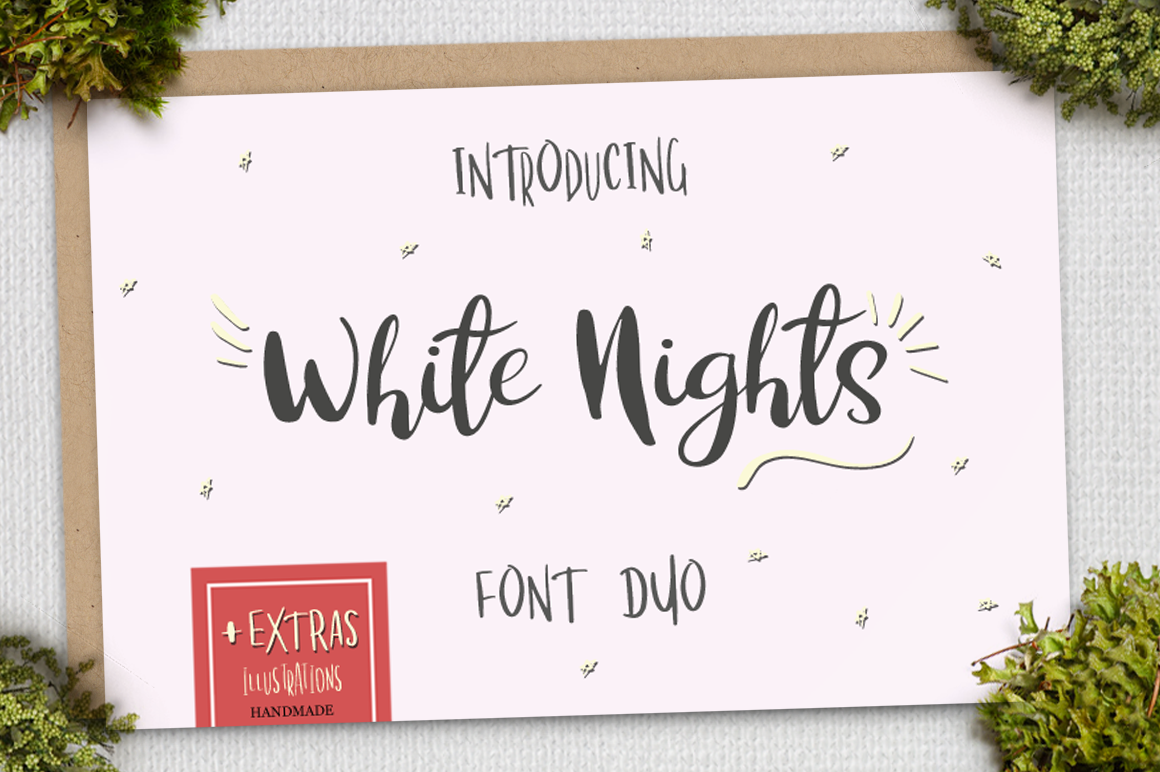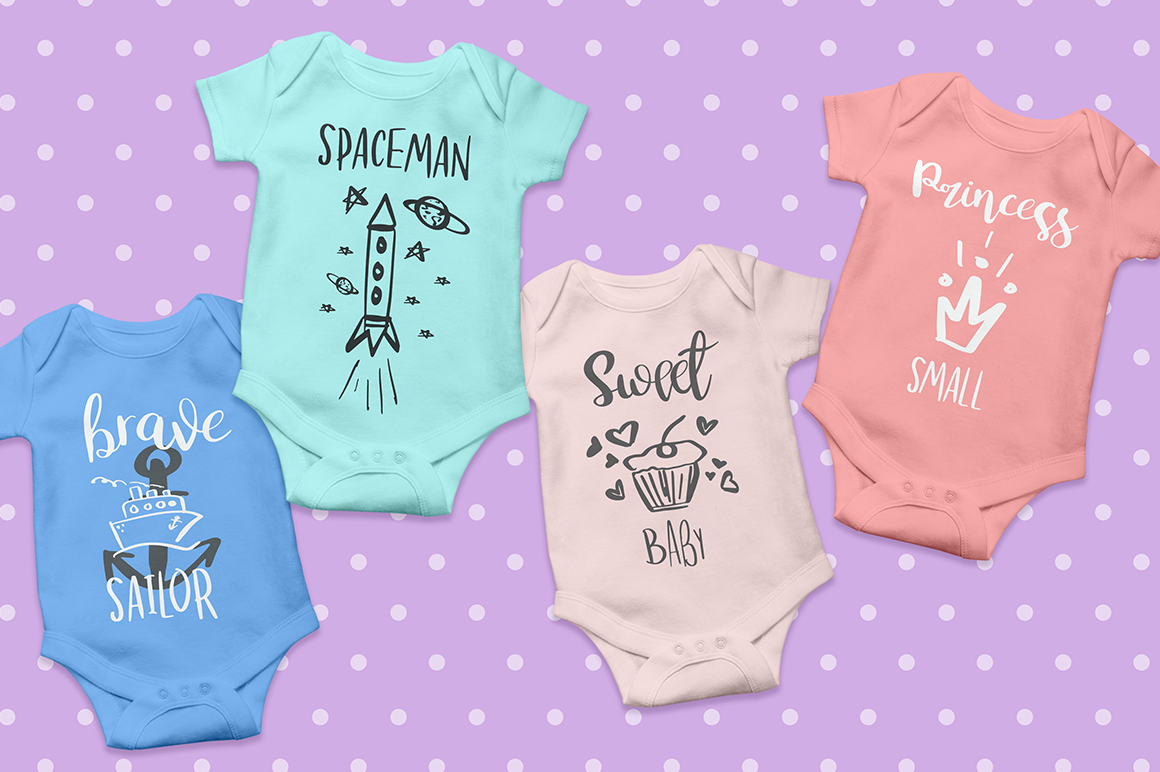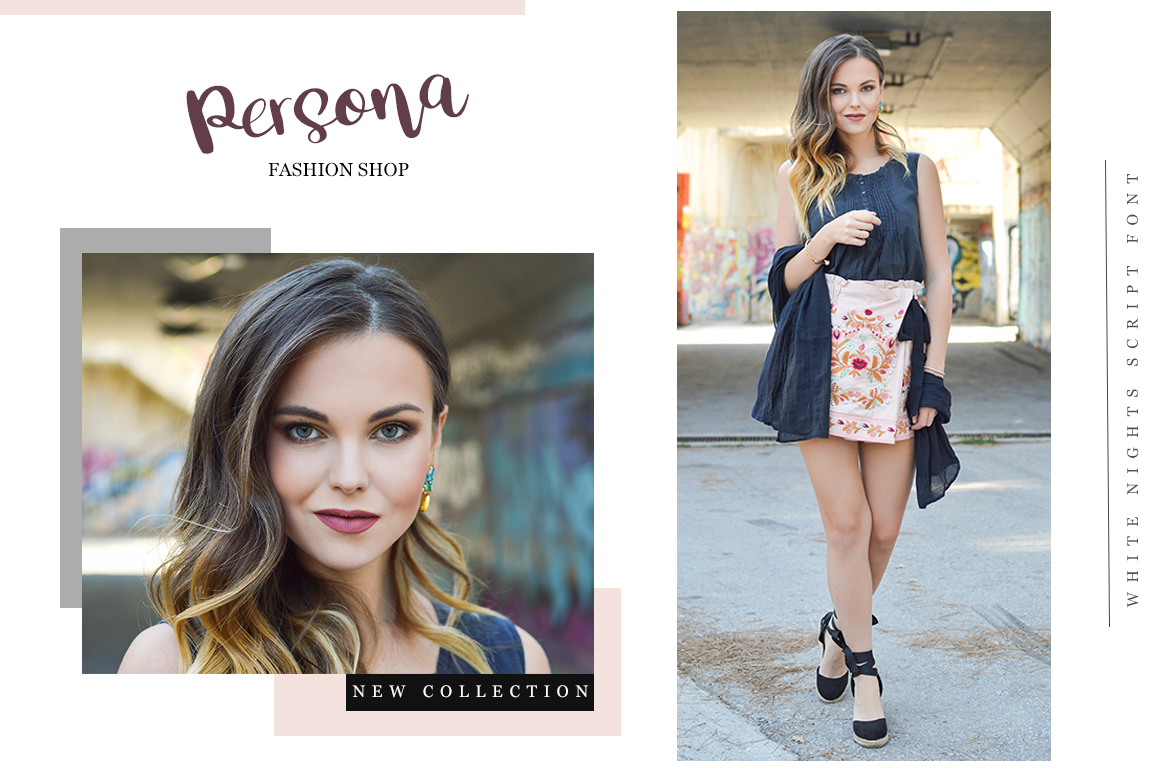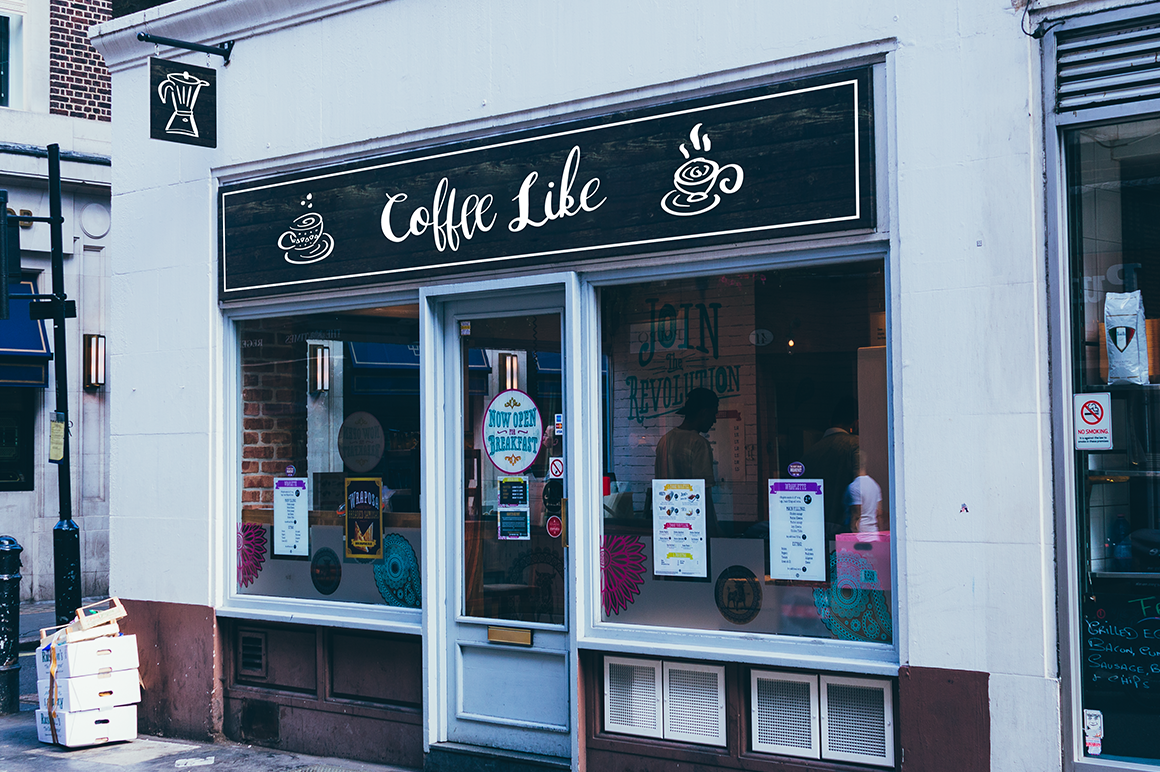
About White Nights Font
White Nights is a beautiful and complementary font family, with a calligraphy script and sans serif. This relaxed and friendly font combo is ideal for a large range of designs, and can add some beauty to your creative projects.